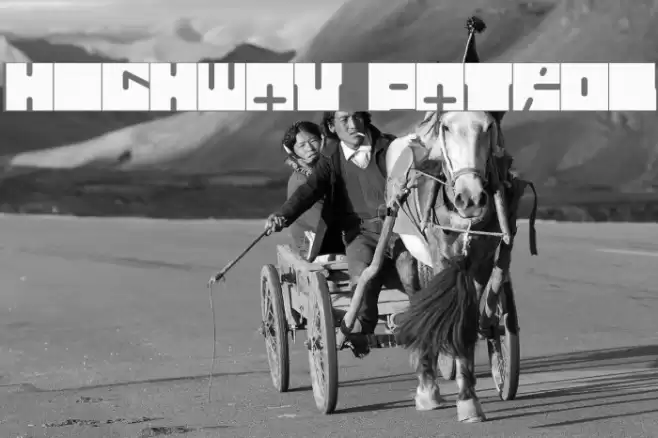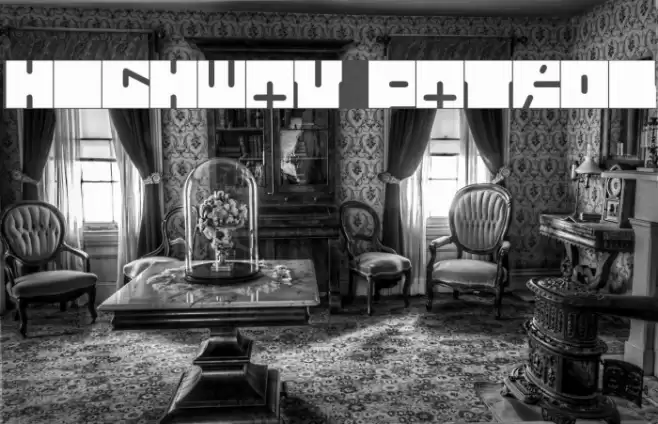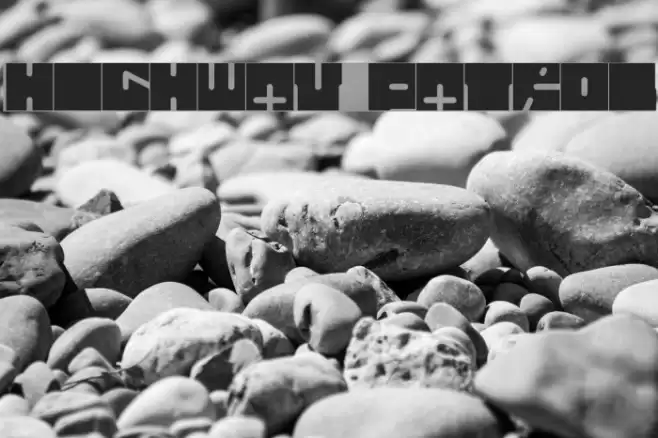
HIGHWAY PATROL Font
HIGHWAY PATROL Description
This font features a bold and geometric design, characterized by its blocky and angular shapes. Each character is enclosed within a square, creating a uniform and structured appearance. The strokes are thick and consistent, providing a strong visual impact. The font's design is reminiscent of digital or pixelated styles, making it suitable for modern and tech-related themes. The characters are distinct and easily recognizable, with a futuristic and industrial feel. This font is ideal for projects that require a bold statement or a unique visual identity.
A bold, geometric font with a digital, futuristic style from Uncategorized fonts.
- Proposed Projects: Ideal for technology branding, digital art, video game titles, and modern posters.